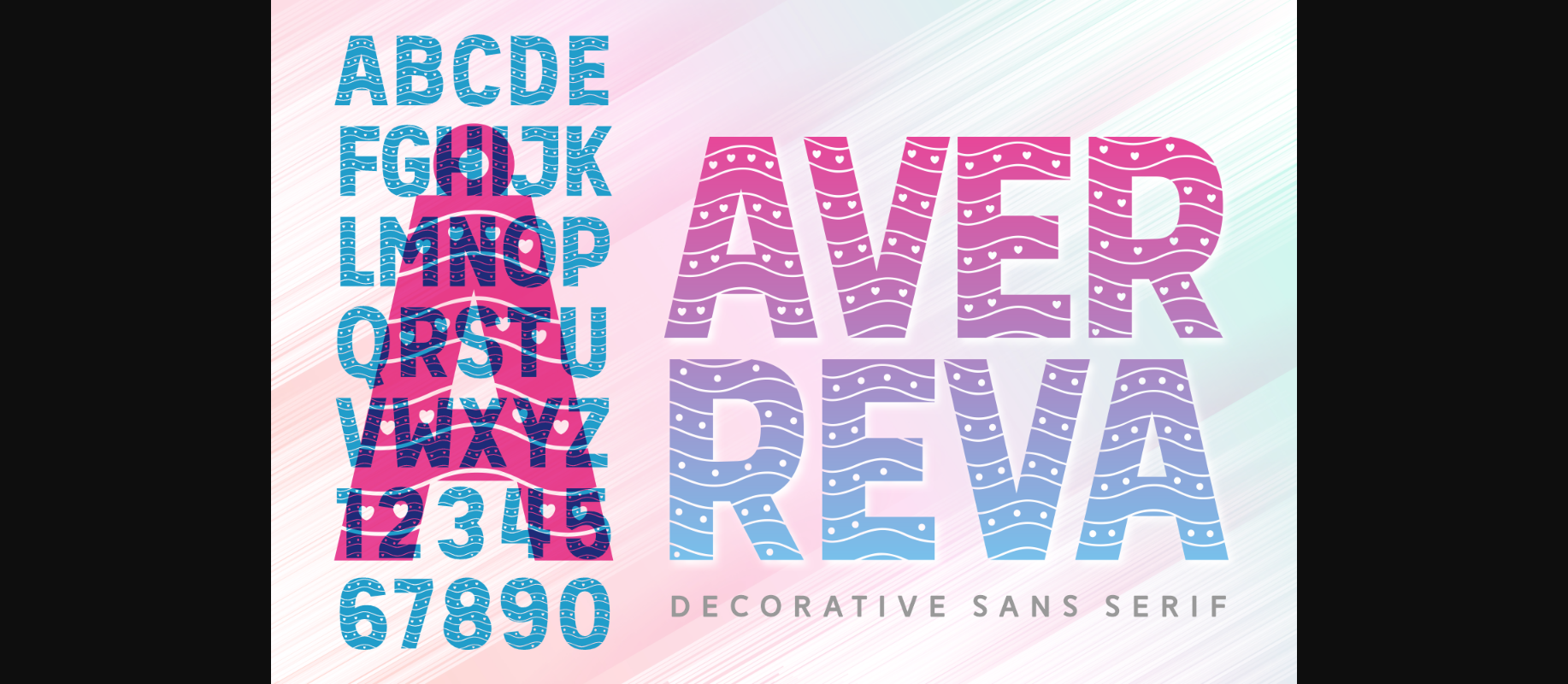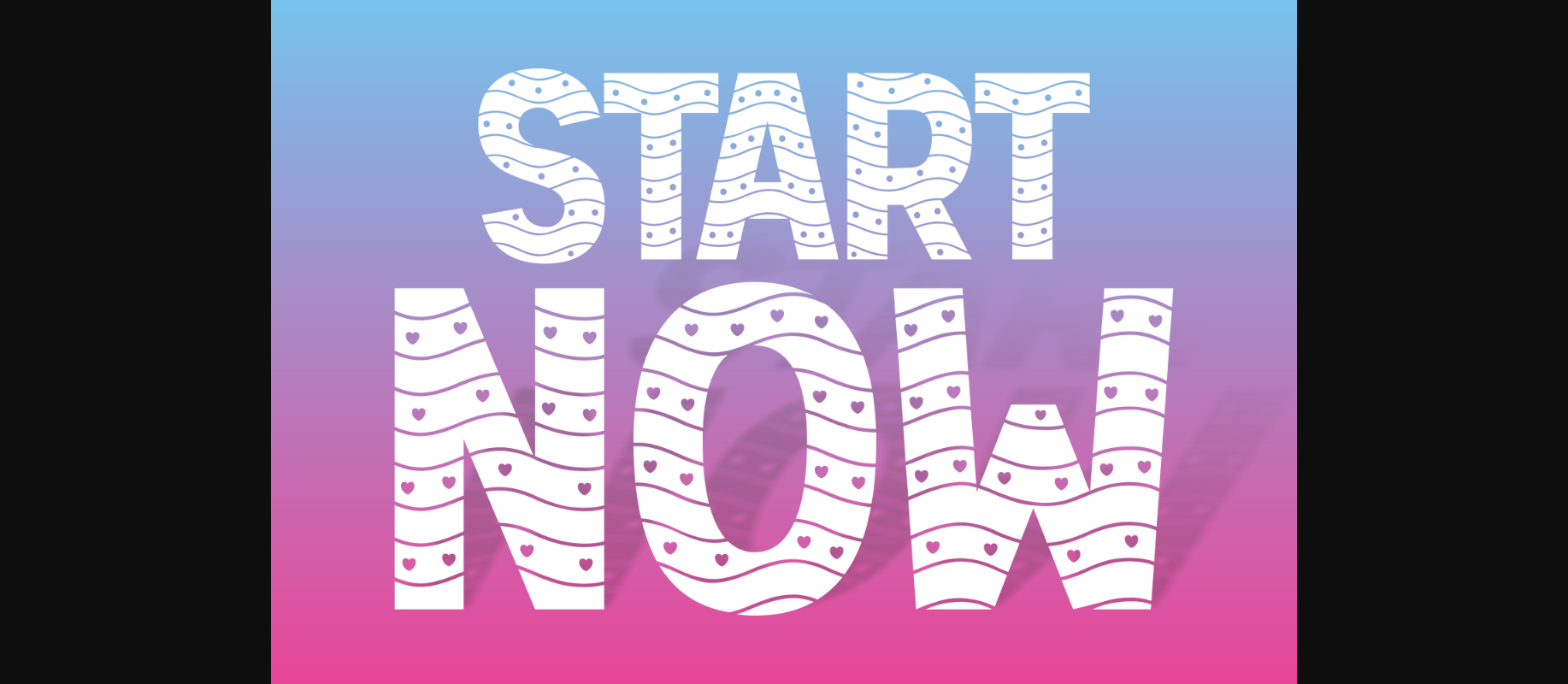
About Aver Reva Font
Aver Reva is a fun and exciting decorative font suitable for your most creative ideas and projects! Use it for book covers, banners, marketing materials, stationery, social media posts, and more.